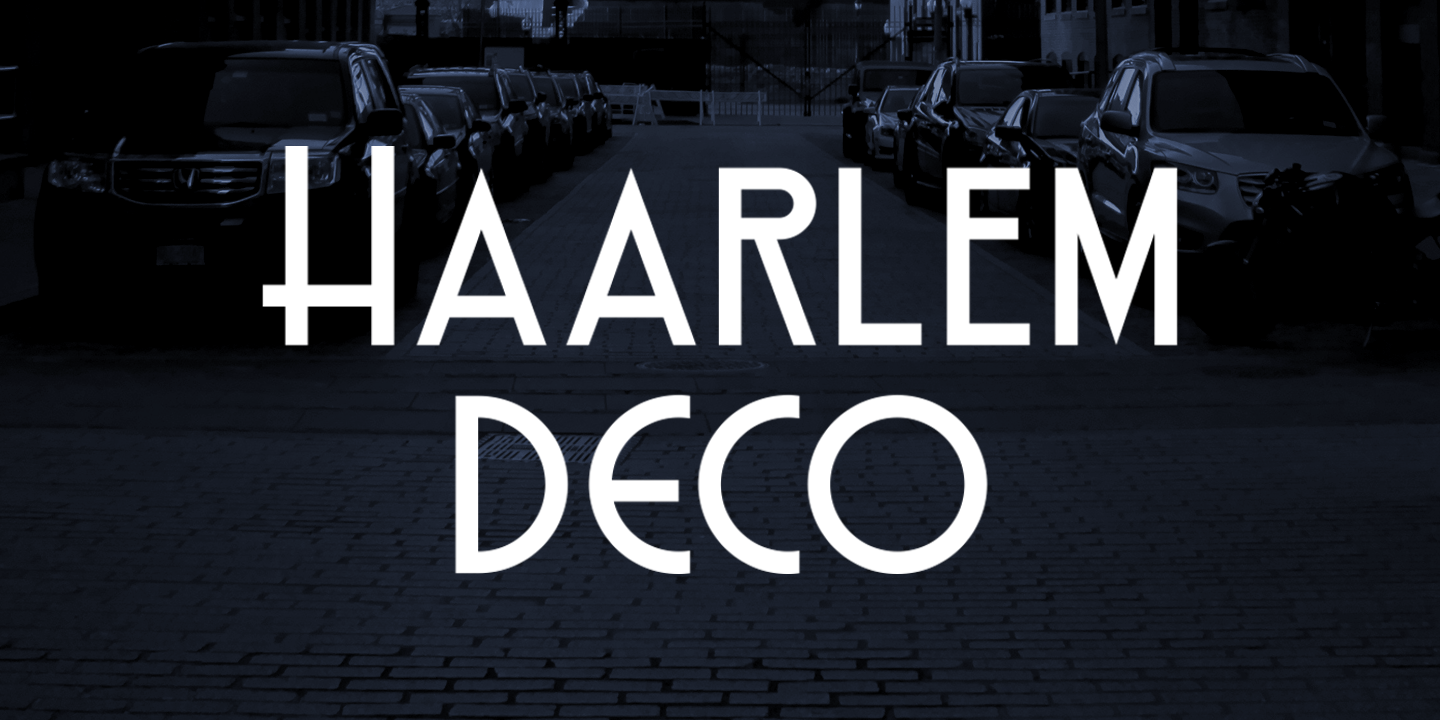
Haarlem Deco Font is perfect for Art Deco revival projects, vintage luxury branding, 1920s themed events, elegant hotel signage, sophisticated restaurant identities, premium fashion magazines, classic cocktail bar designs, upscale jewelry packaging, refined theater programs, and timeless architectural documentation.
What makes Haarlem Deco Font exciting is its sophisticated glamour and timeless Art Deco elegance that captures the golden age of design with refined Dutch craftsmanship and metropolitan sophistication. This distinguished typeface embodies the spirit of 1920s luxury with its geometric precision and decorative flourishes that evoke jazz-age prosperity, architectural grandeur, and the refined taste of Europe's most cultured cities. The font's aristocratic character creates an immediate impression of established elegance and cosmopolitan refinement.
Haarlem Deco Font family includes regular weight with elegantly crafted character designs featuring Art Deco geometry and Dutch-inspired proportions. The typeface maintains exceptional readability while showcasing its distinctive period personality through meticulously designed letterforms that reflect the architectural harmony and cultural sophistication of classic European design traditions.
Luxury brand designers consistently select Haarlem Deco Font Free Download for projects requiring authentic Art Deco sophistication and European elegance. This remarkable typeface brings the glamour of the golden age to modern communications, combining classical Dutch aesthetics with timeless luxury appeal to create unforgettable brand experiences. The thoughtfully designed characters ensure prestigious positioning across all applications, making it essential for luxury hotels, high-end retailers, and any organization seeking to communicate the refined elegance and cultural depth that defines European sophistication while honoring the timeless beauty of Art Deco design through Haarlem Deco Font Free Download.